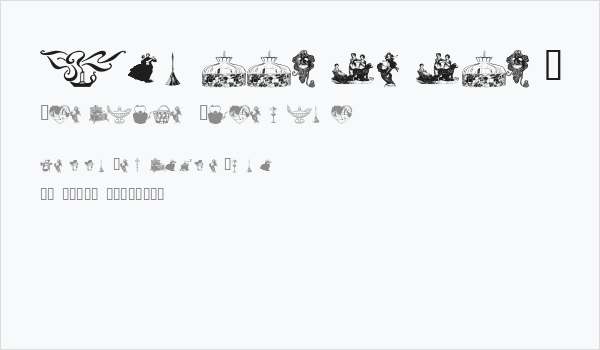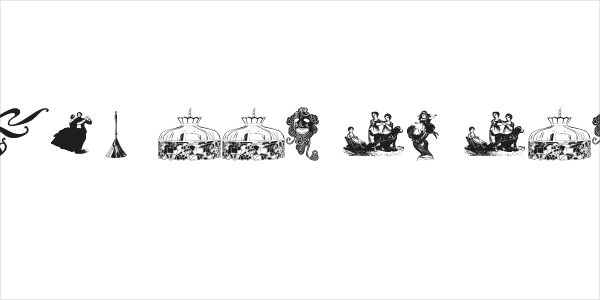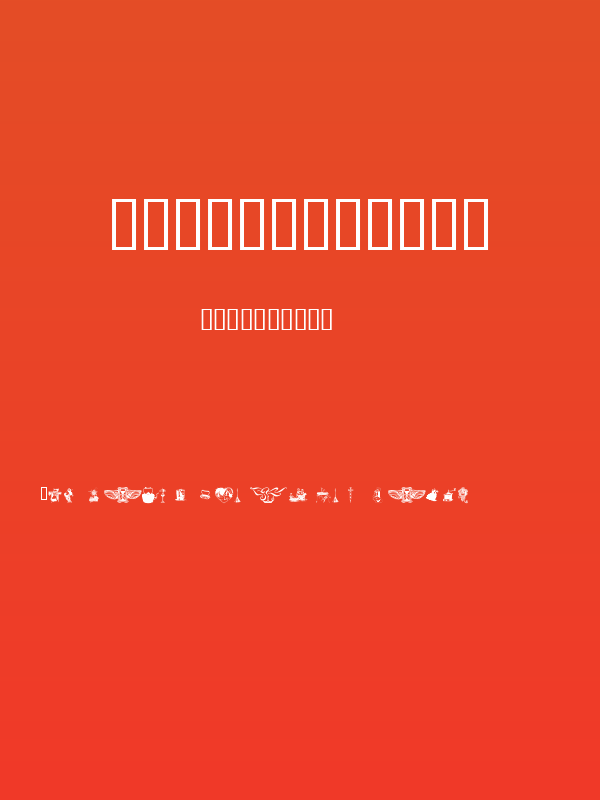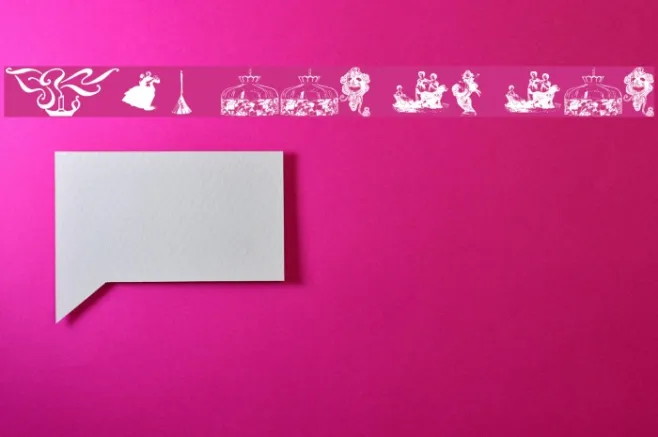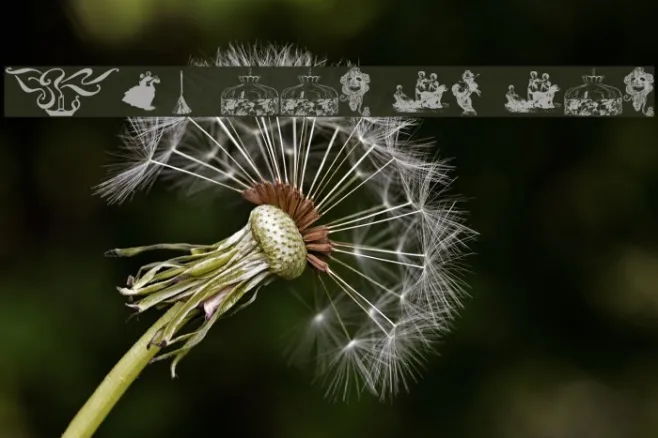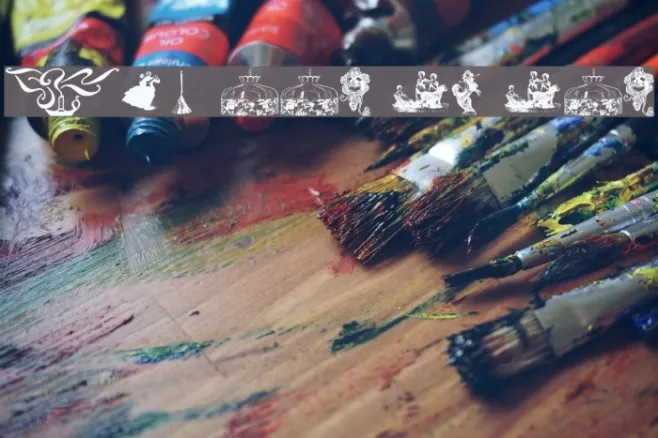
wmoddsnends1 Font
wmoddsnends1 Description
A decorative dingbat font featuring a variety of vintage illustrations, including household items, musical instruments, animals, and ornamental motifs. Each character is represented by a unique, detailed black-and-white drawing.
| Overall Style | Vintage, Decorative |
| Use Case | Decorative elements, icons, embellishments |
| Proposed Projects | Scrapbooking, invitations, vintage posters, decorative borders, themed event materials. |